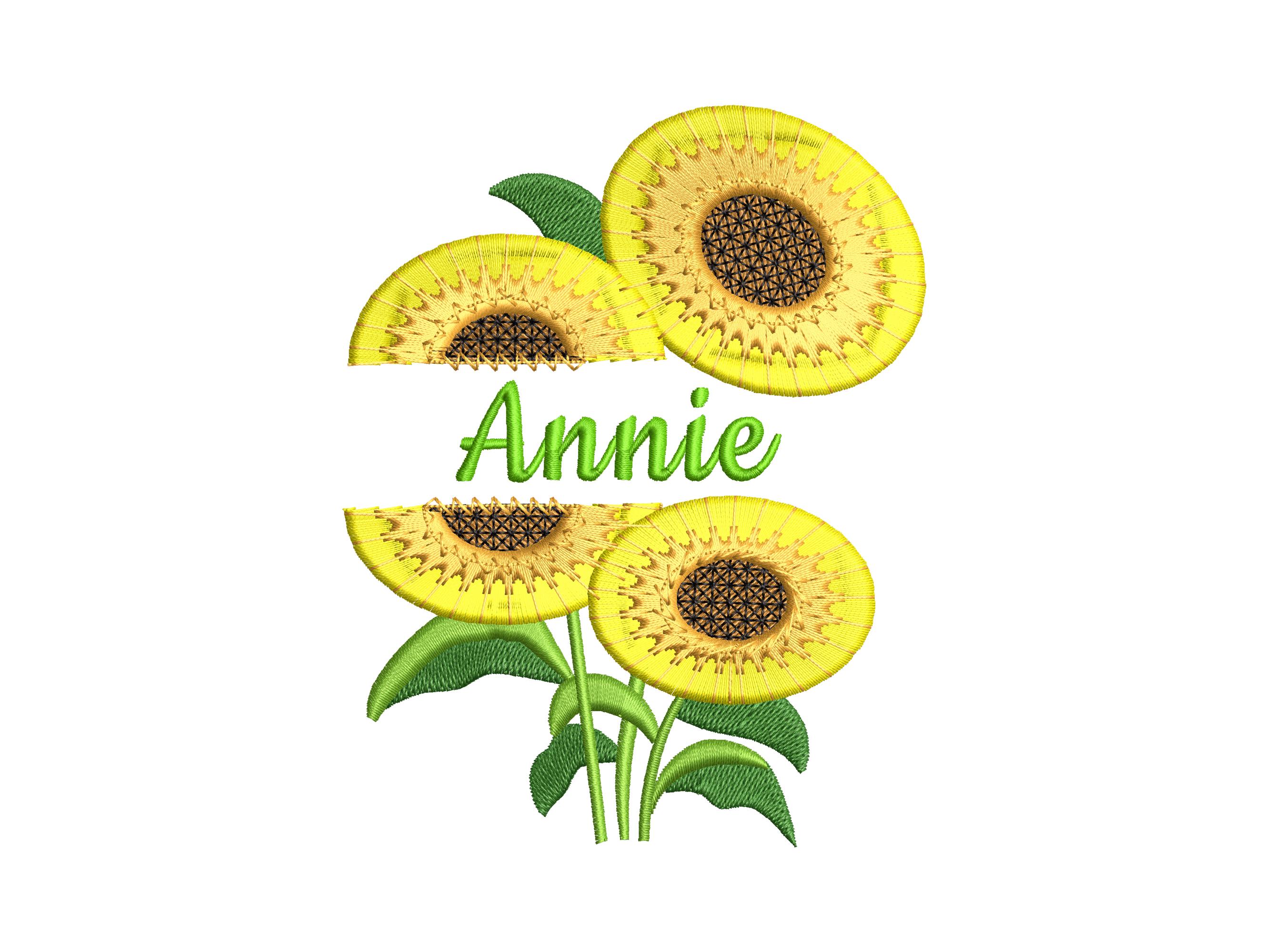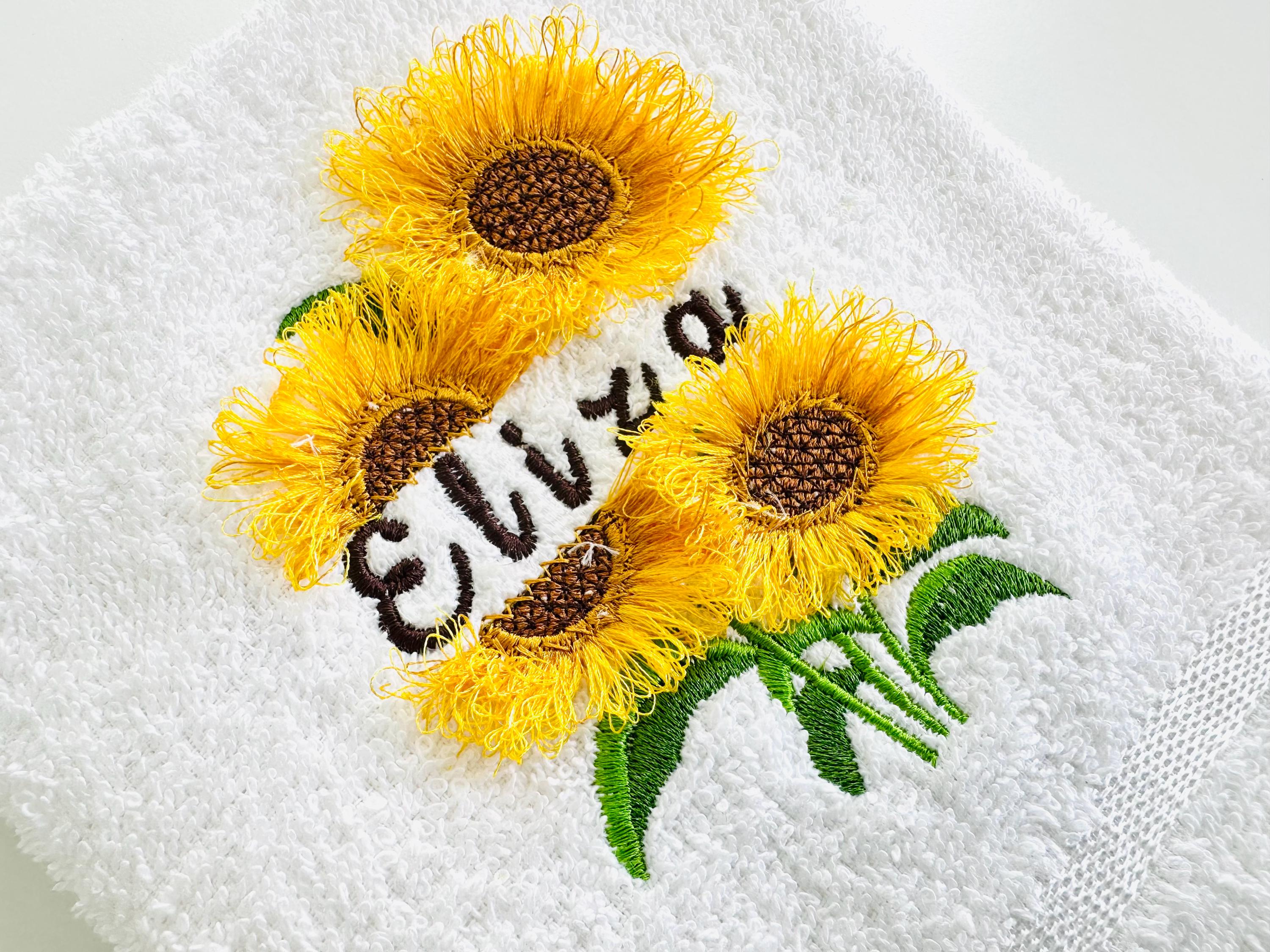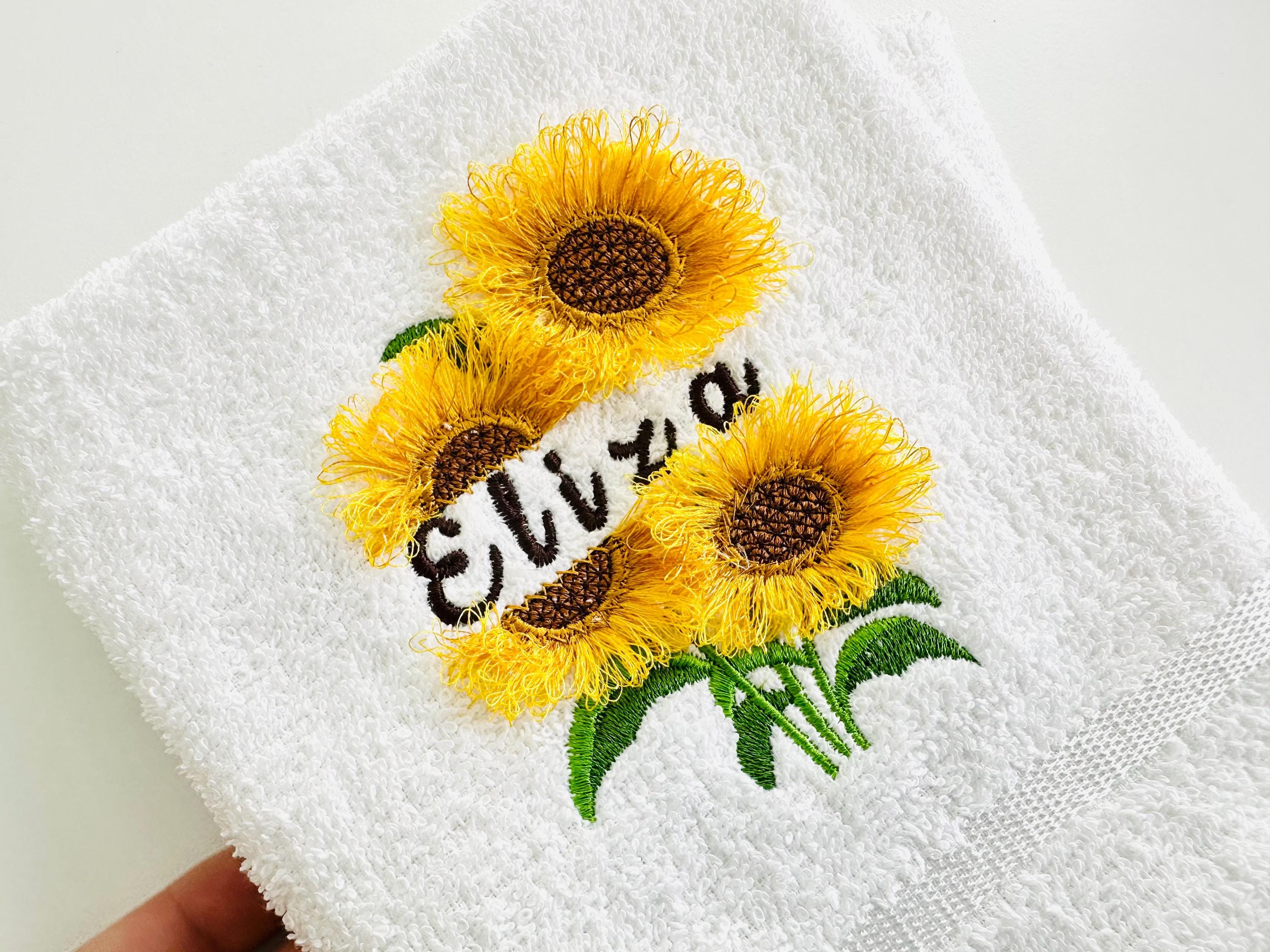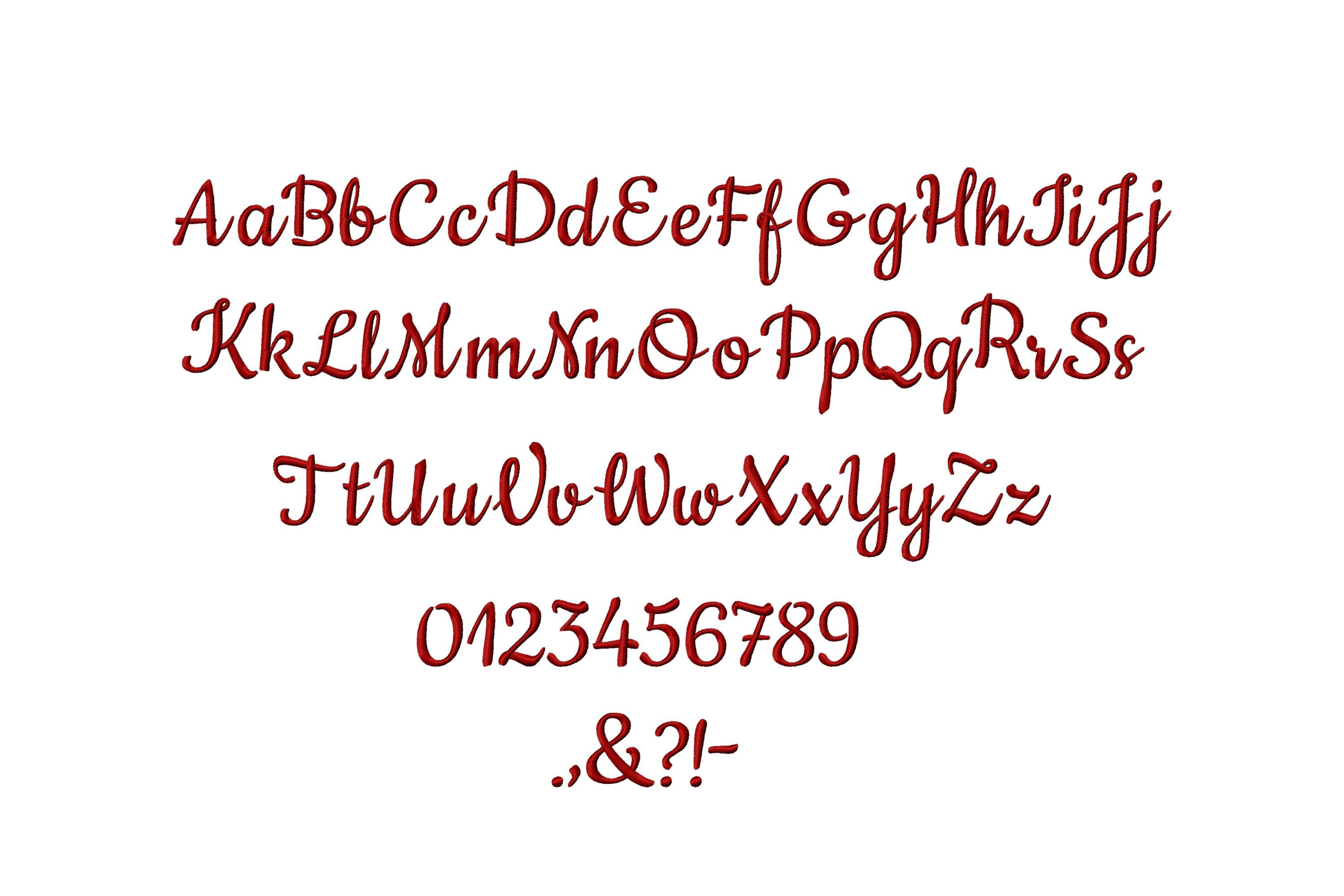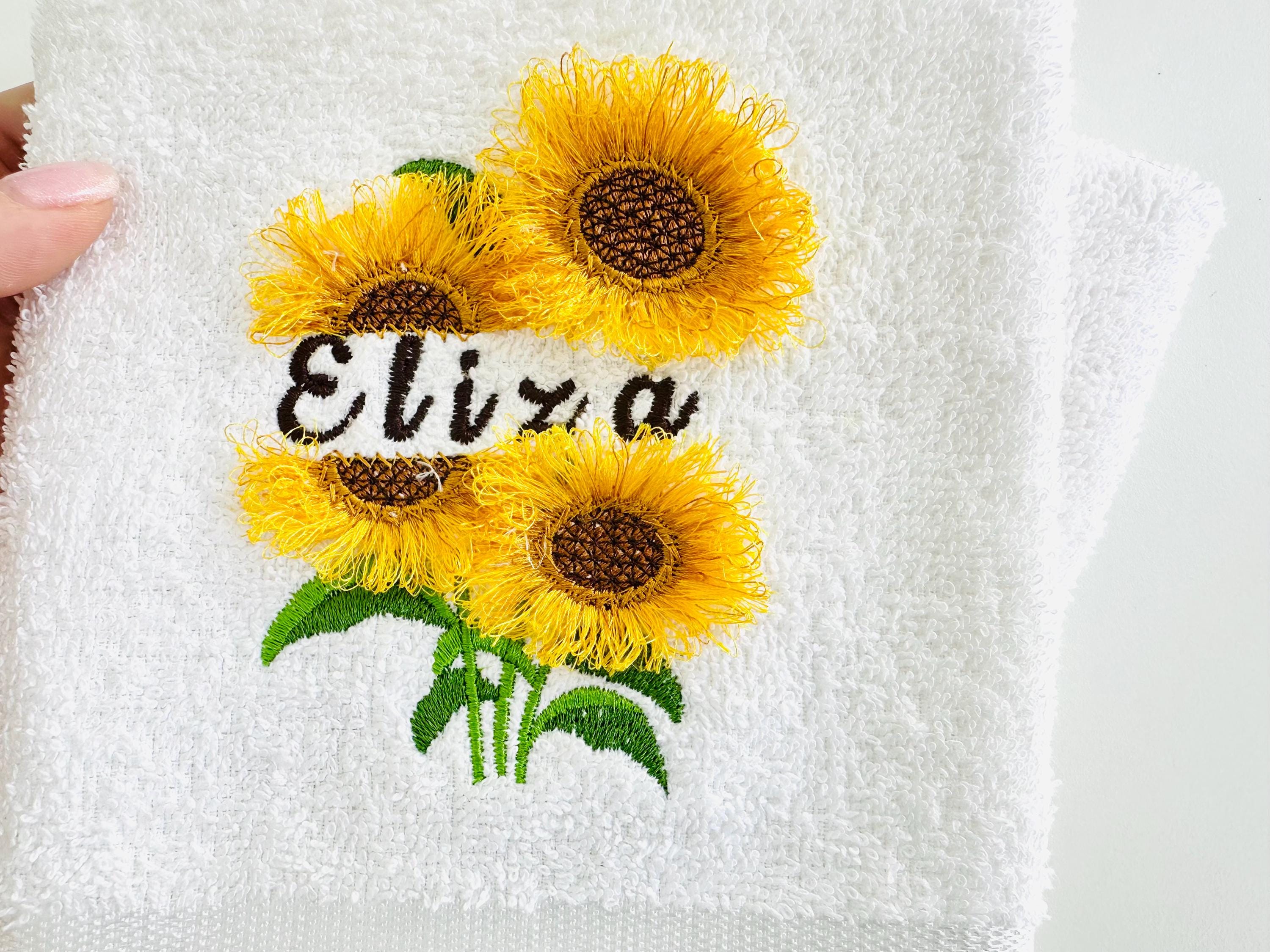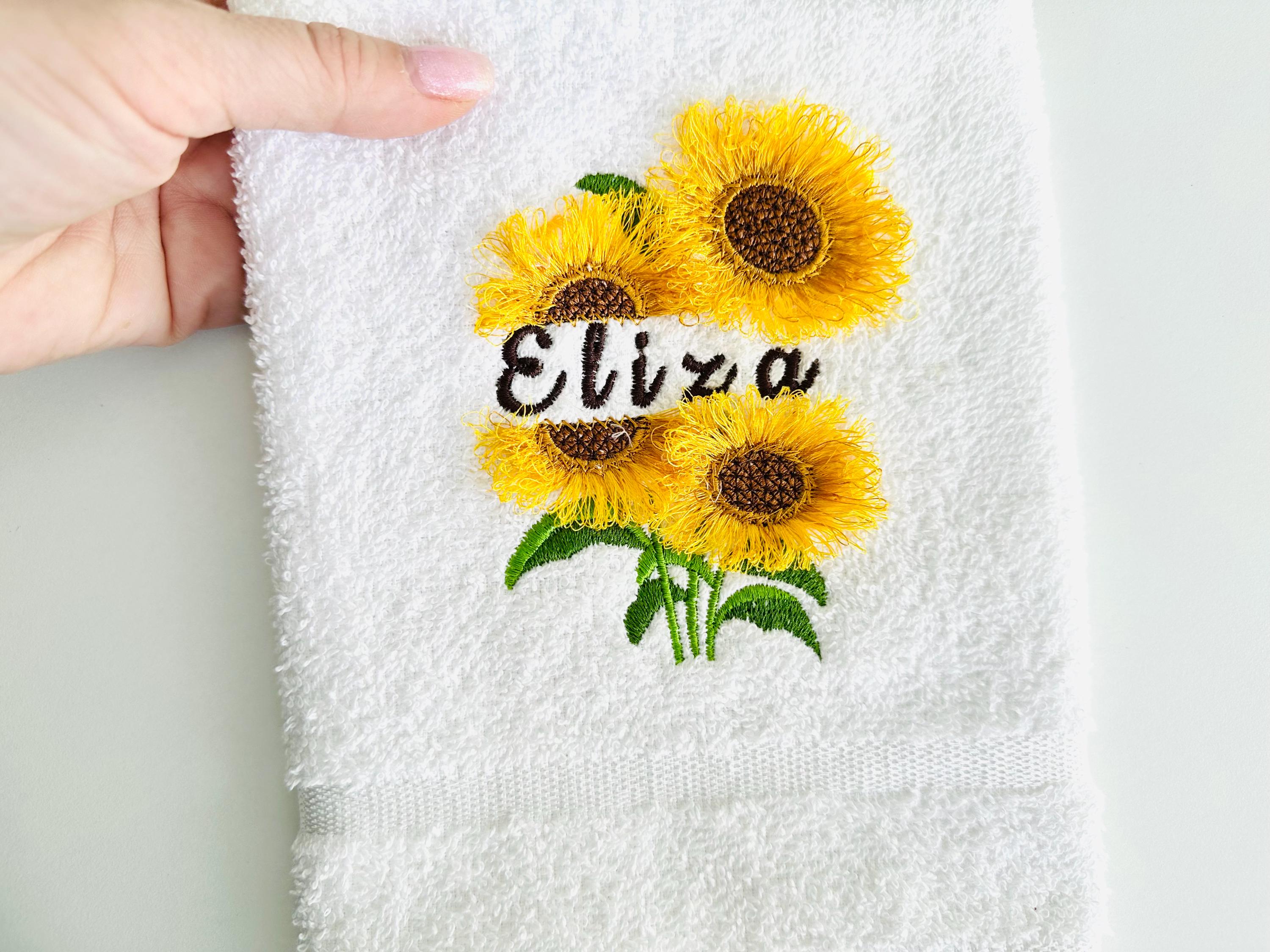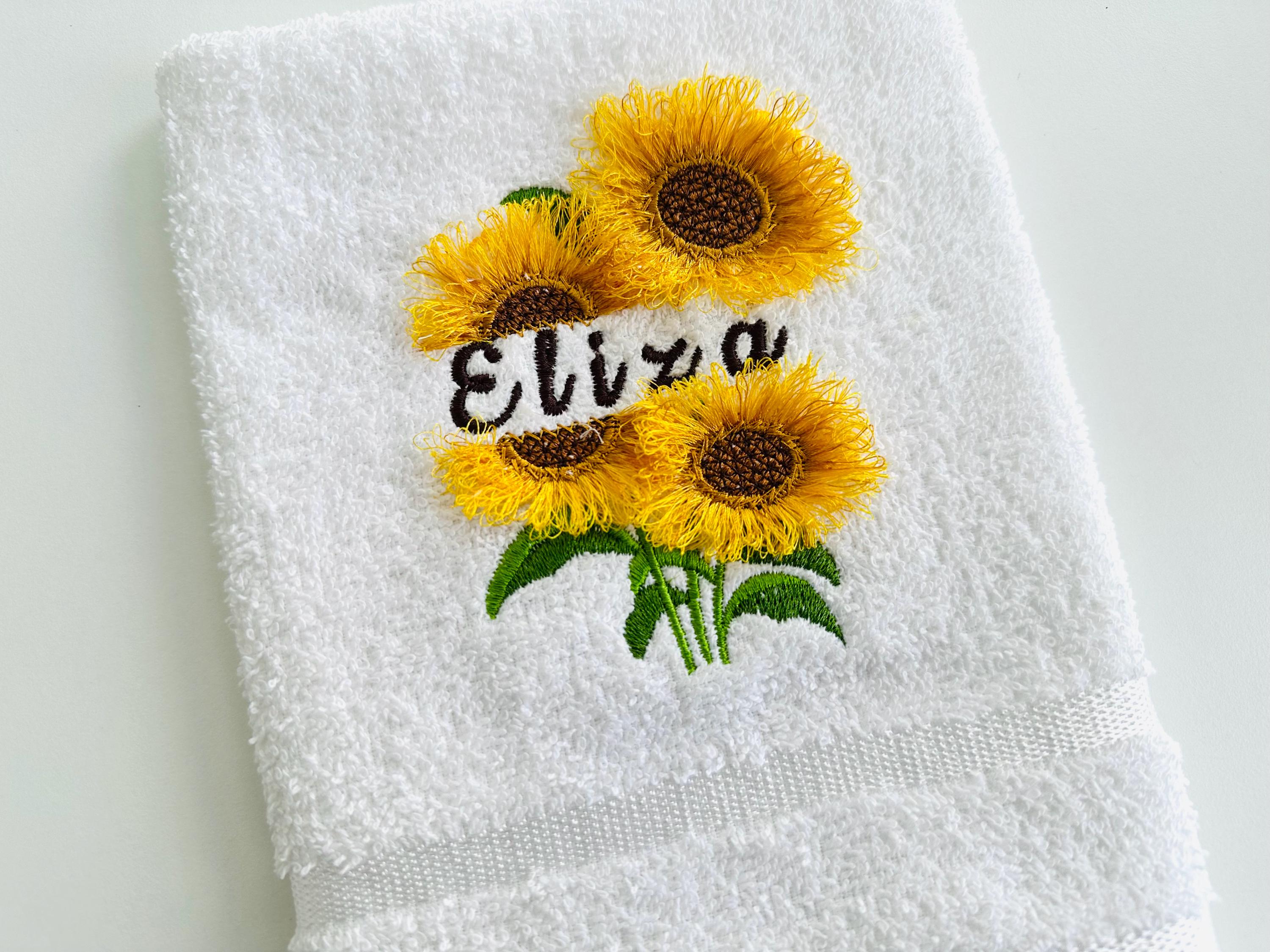
Split Sunflower and mini Font SET Fringed Fluffy Fringe Flower machine embroidery designs divided Monogram name frame sizes 4 up to 5.5 inch
Font
0.4 inches
0.6 inches
0.8 inches
You can use any other font you like in sizes up to 1.2 inch.
It is easy. Embroider the design as usual. Large satin stitches will be loose. Once you complete stitching the design, turn over your hoop to see the reverse side, and cut the bobbin thread, along the large satin stitches. Turn the hoop back over and fluff up the "fringe" around.